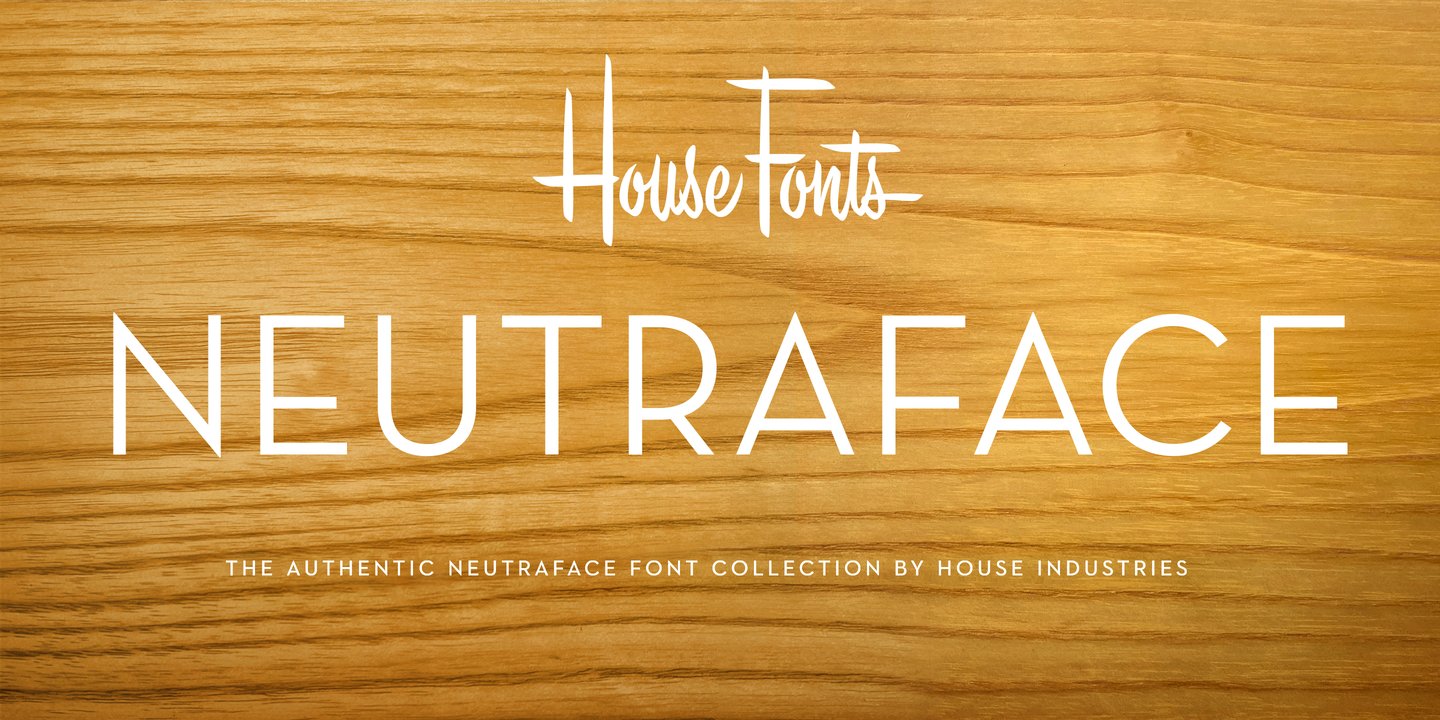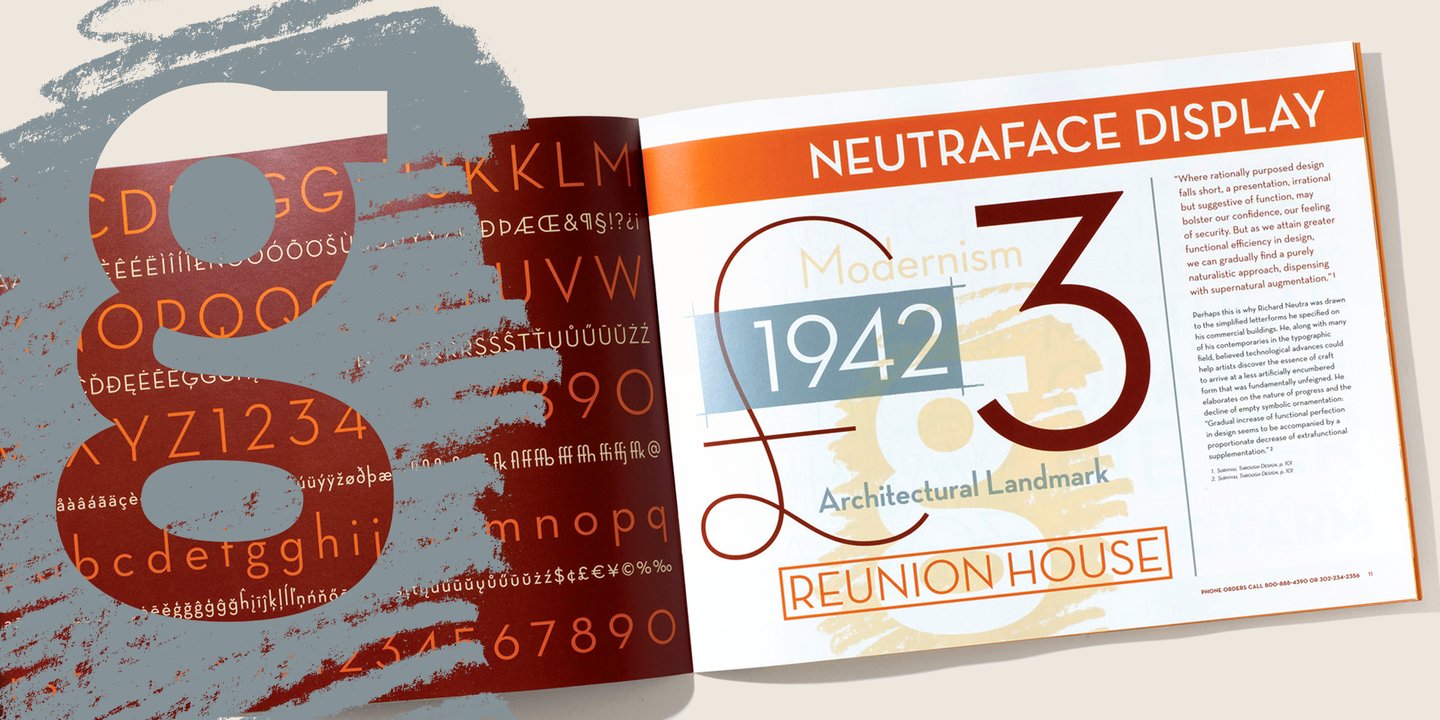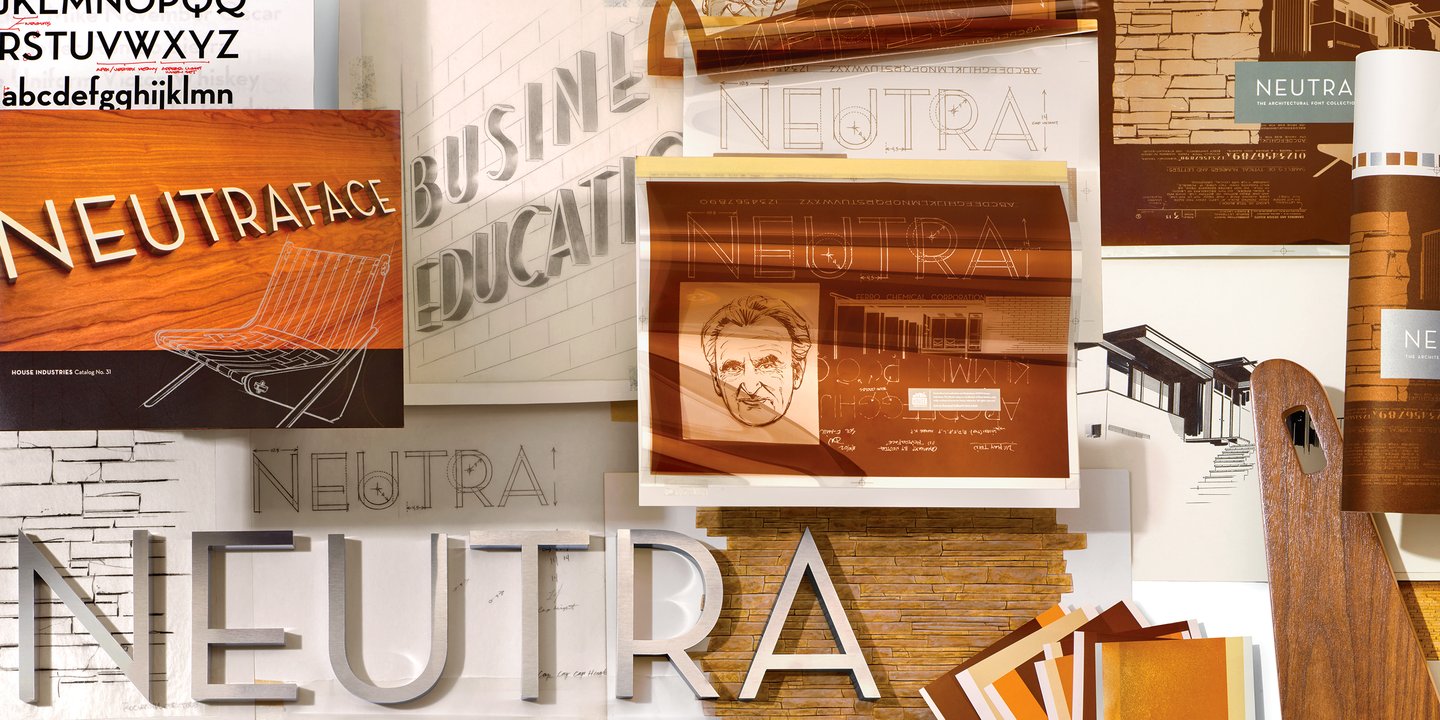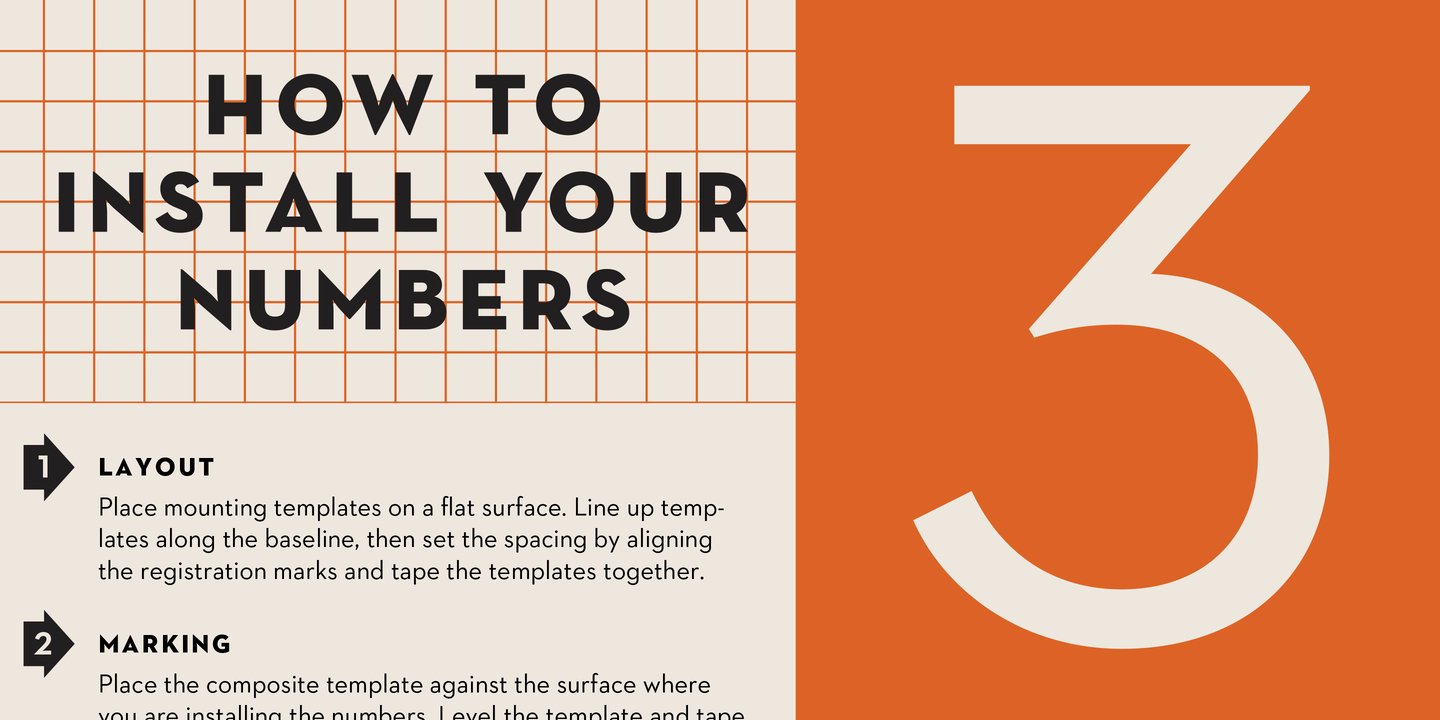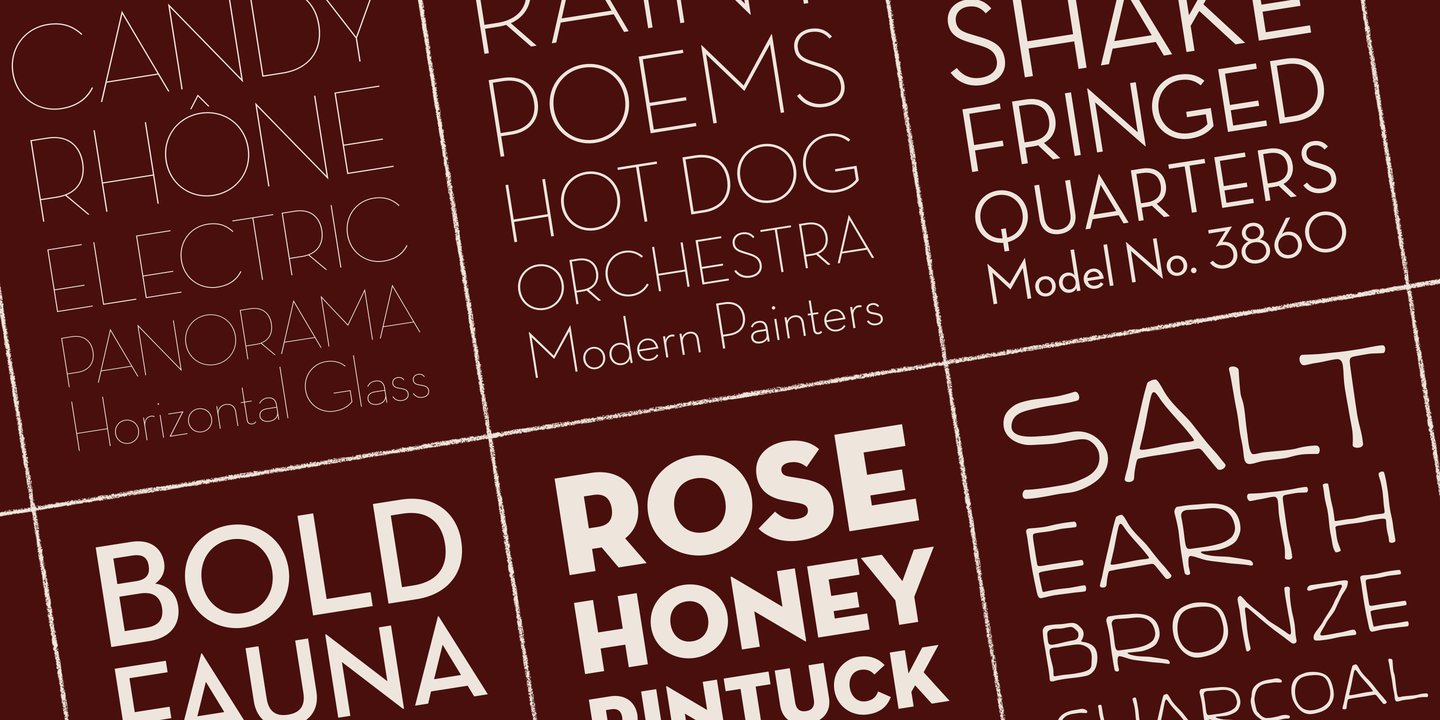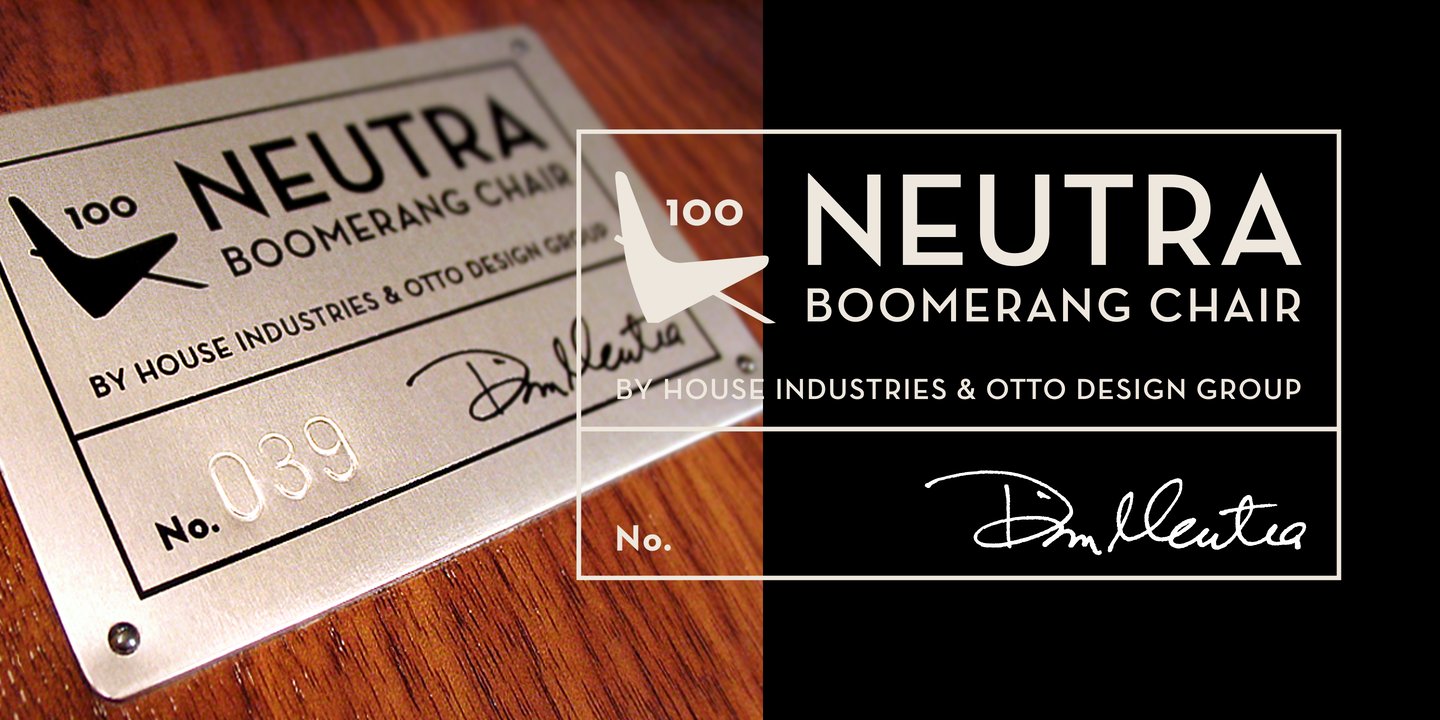
About the Neutraface Display Font
About Neutraface Display Font Family Although better known for his residential buildings, Richard Neutra’s commercial projects nevertheless resonate the same holistic ecology—unity with the surrounding landscape and uncompromising functionalism. His attention to detail even extended to the selection of signage for his buildings. It is no wonder that Neutra specified lettering that was open and unobtrusive, the same characteristics which typified his progressive architecture. House Industries brings the same linear geometry to Neutraface without sacrificing an unmistakably warm and human feel. FEATURES LIGATURES:
This feature is on by default. It will substitute a long list of “f” and “t” ligatures. For example, open InDesign or Photoshop and type “ff” or “tt”.NEUTRAFACE DISPLAY ALTERNATES: Neutraface Display contains several stylistic alternate characters useful when a purely geometric setting is desired. Like all good subversives, House Industries hides in plain sight while amplifying the look, feel and style of the world’s most interesting brands, products and people. Based in Delaware, visually influencing the world. Designers: Christian Schwartz, Ken Barber, Andy CruzPublisher: House IndustriesFoundry: House IndustriesDesign Owner: House IndustriesMyFonts debut: Sep 2, 2021 Neutraface Display